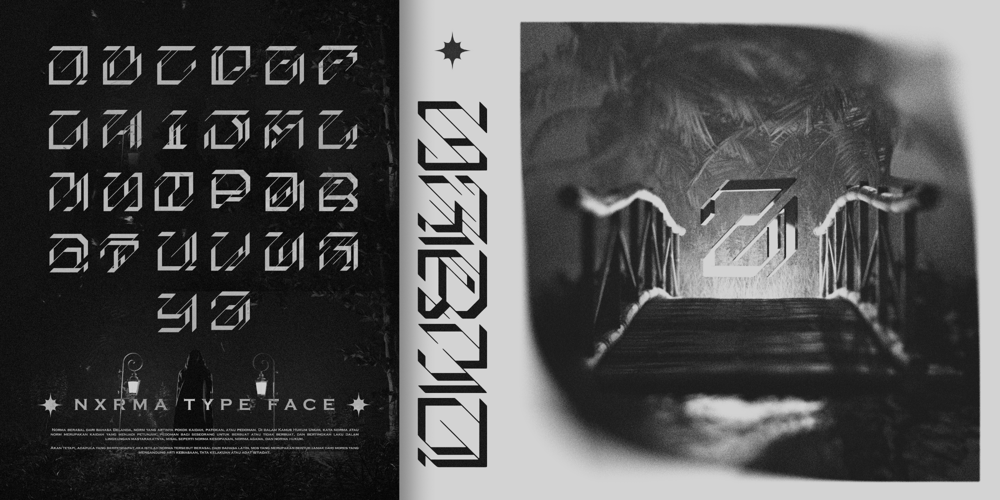
Nxrma Font Family was designed by Harist Setiawan and published by NXRMALIST. Nxrma contains 1 styles and family package options. Nxrma is a font designed by Nxrmalist. This font has a design that combines calligraphy, modern, and geometry. This font is designed to make it easier for designers to create custom typefaces, logos, or for decoration. The neat design makes it easy for designers to create cool works.